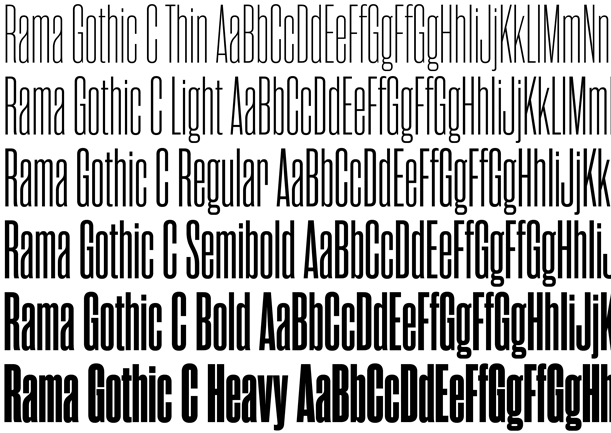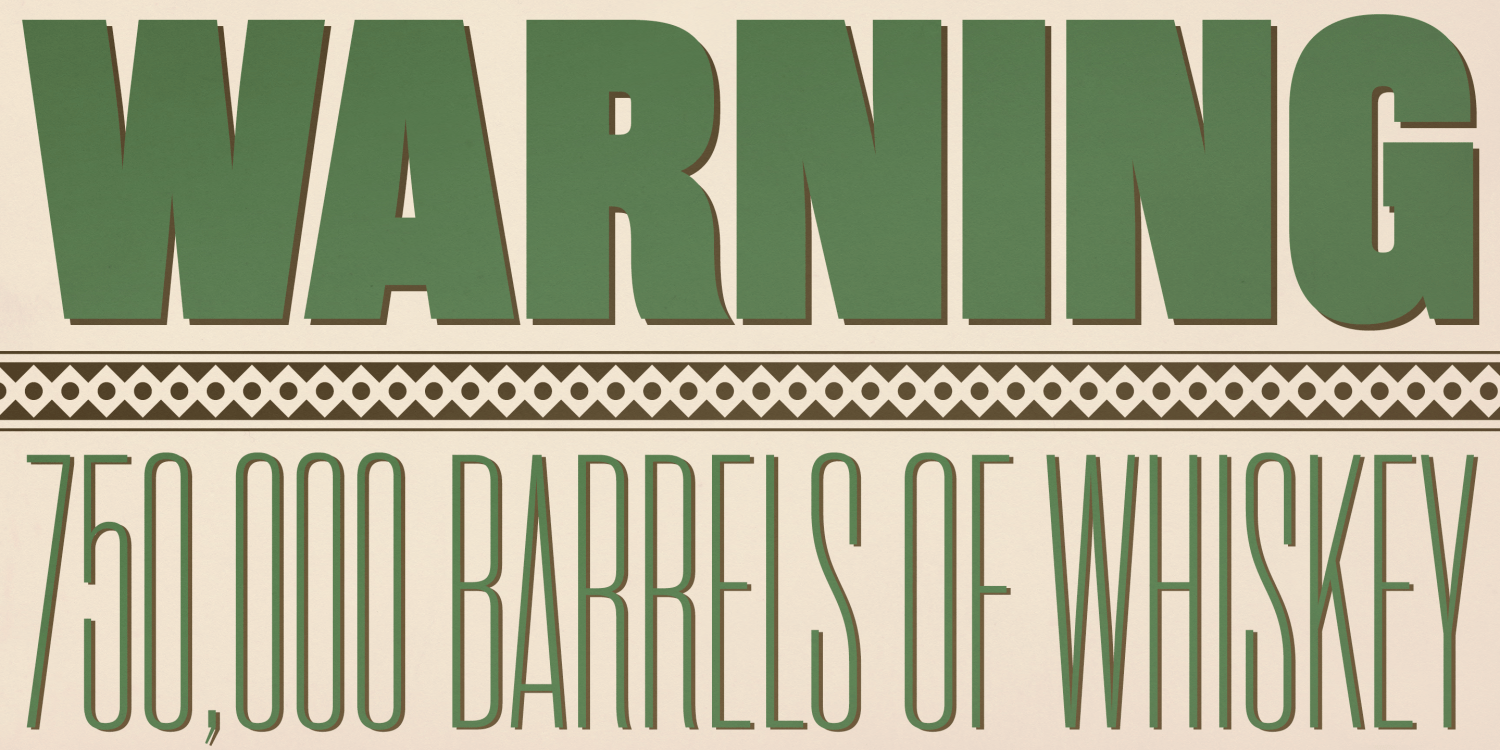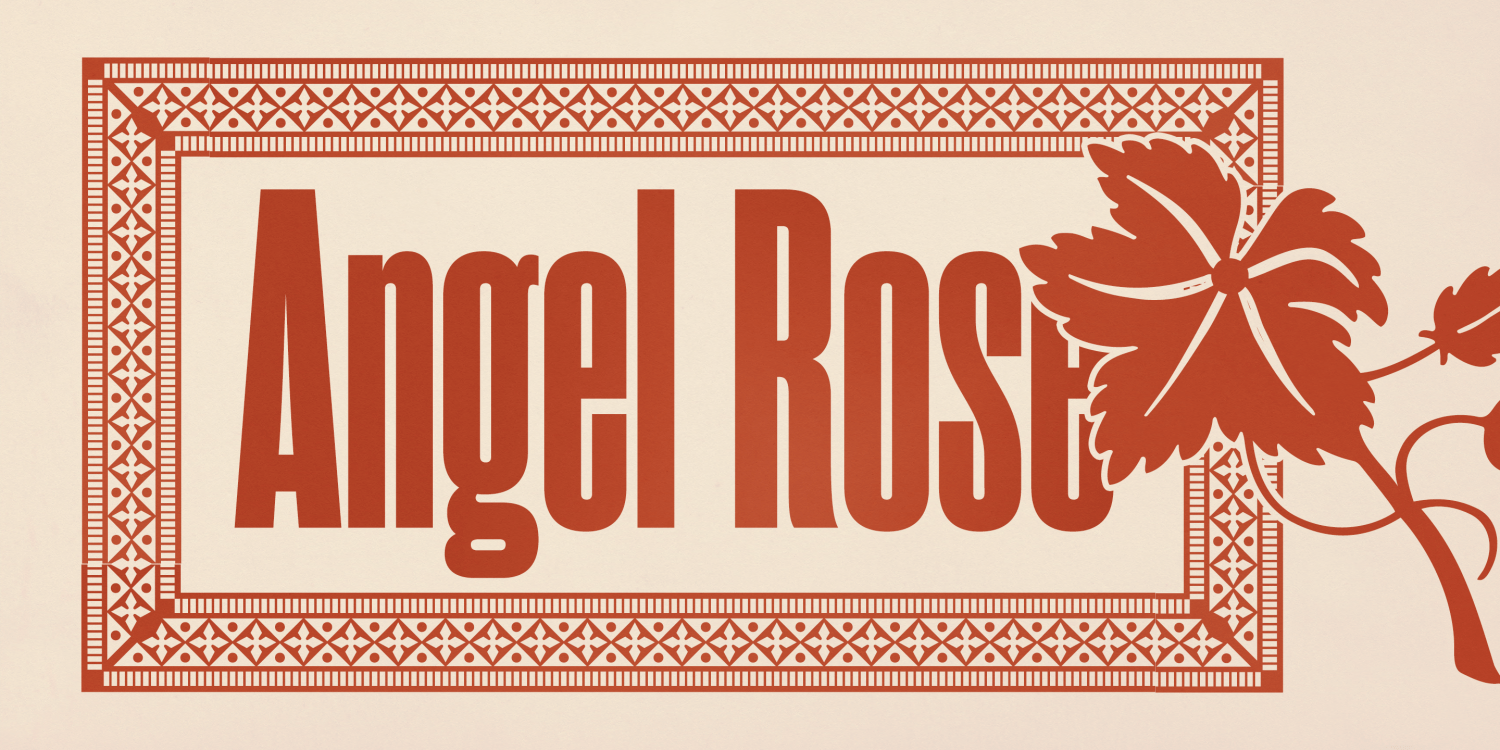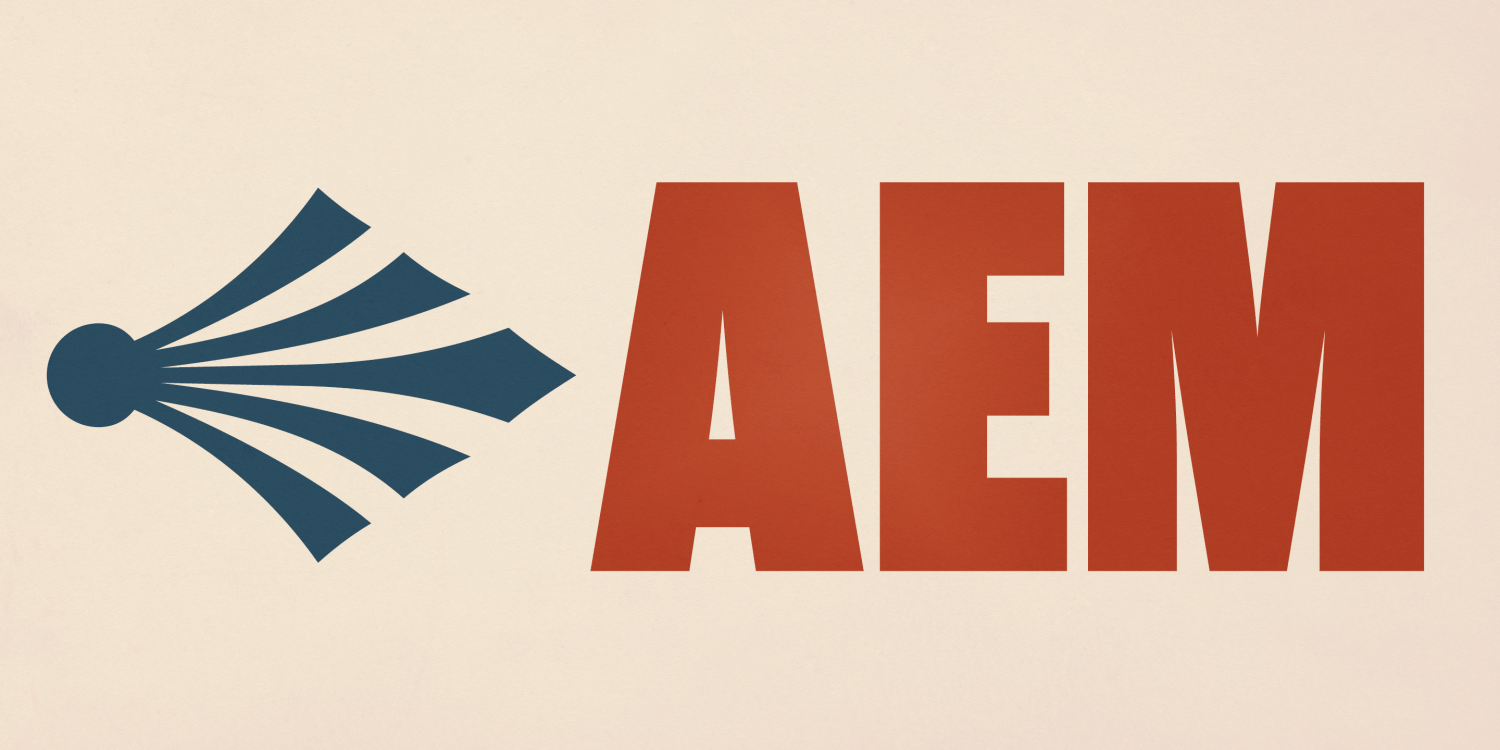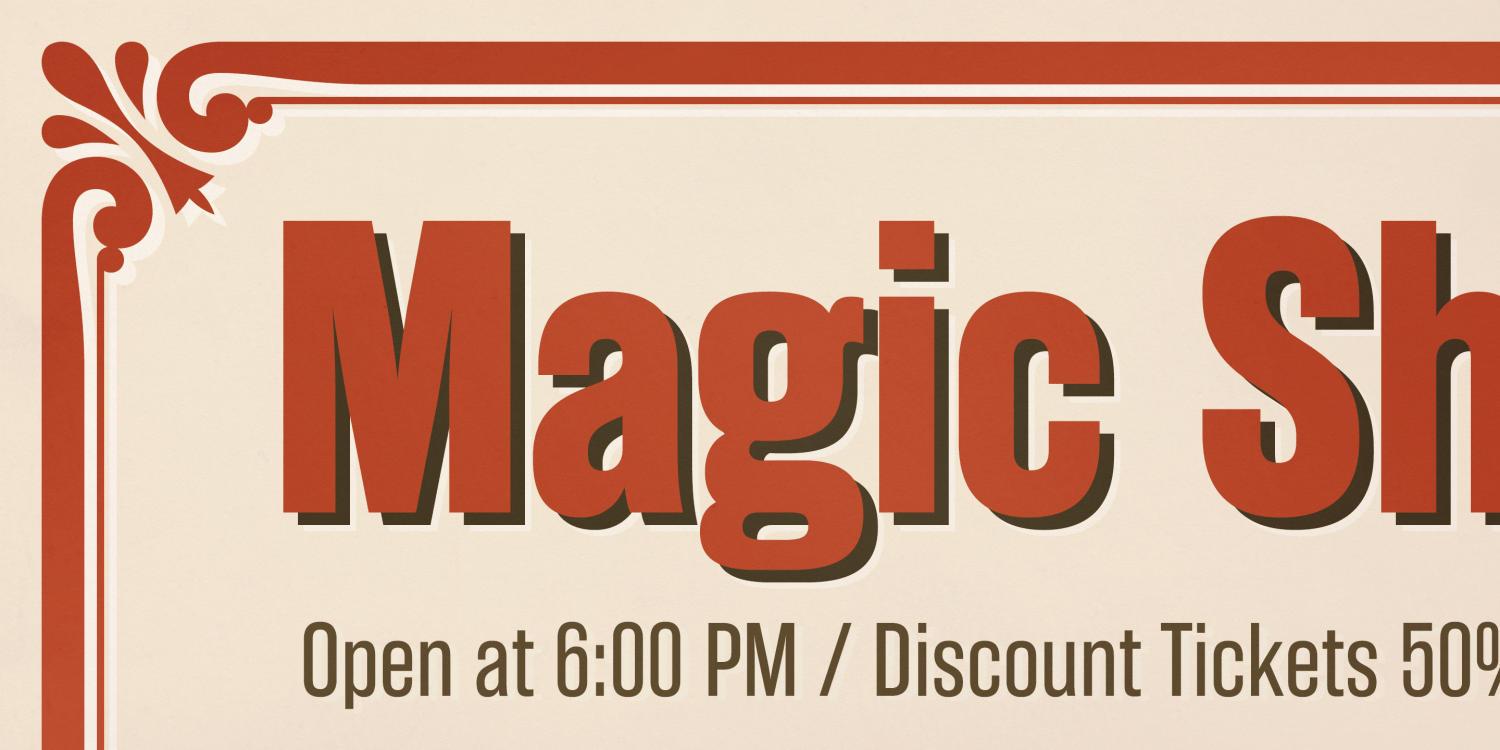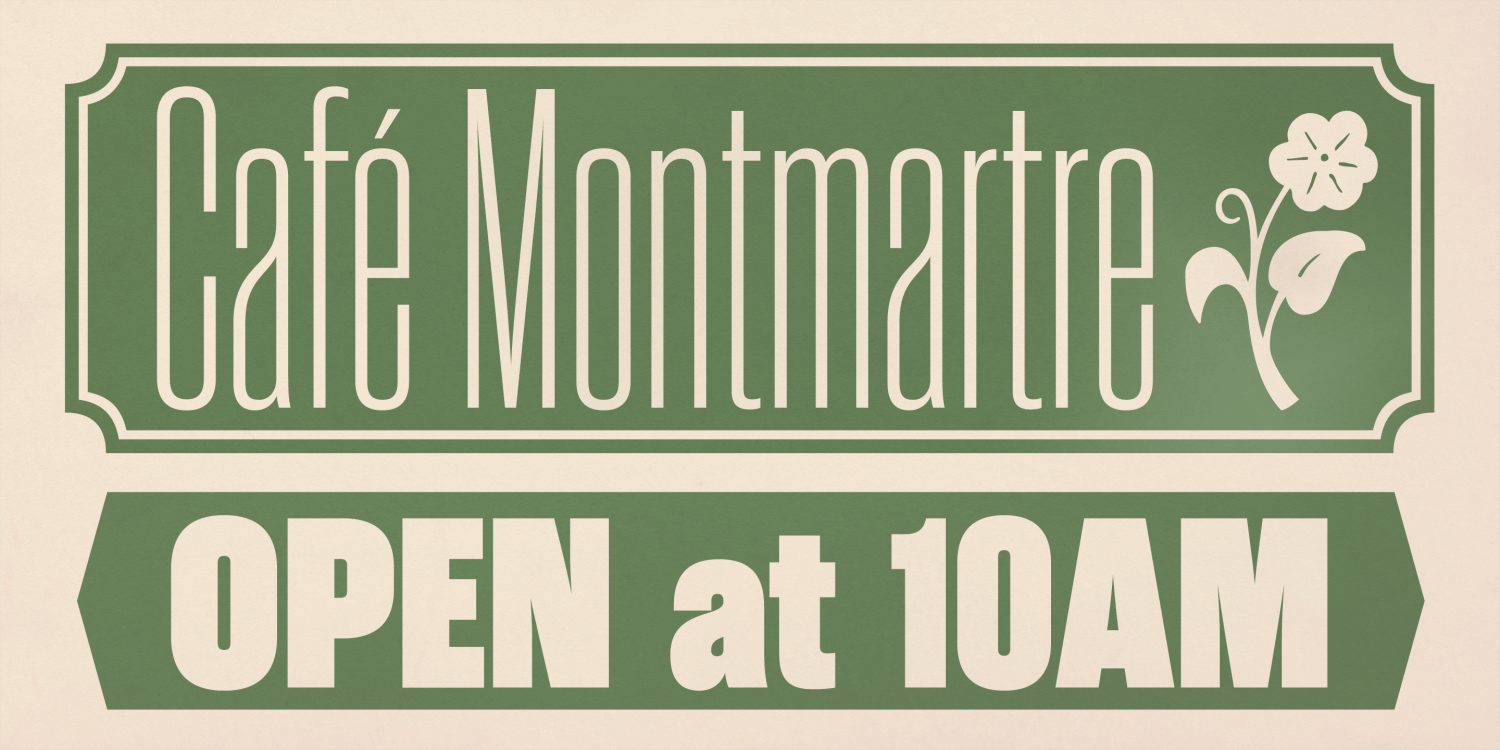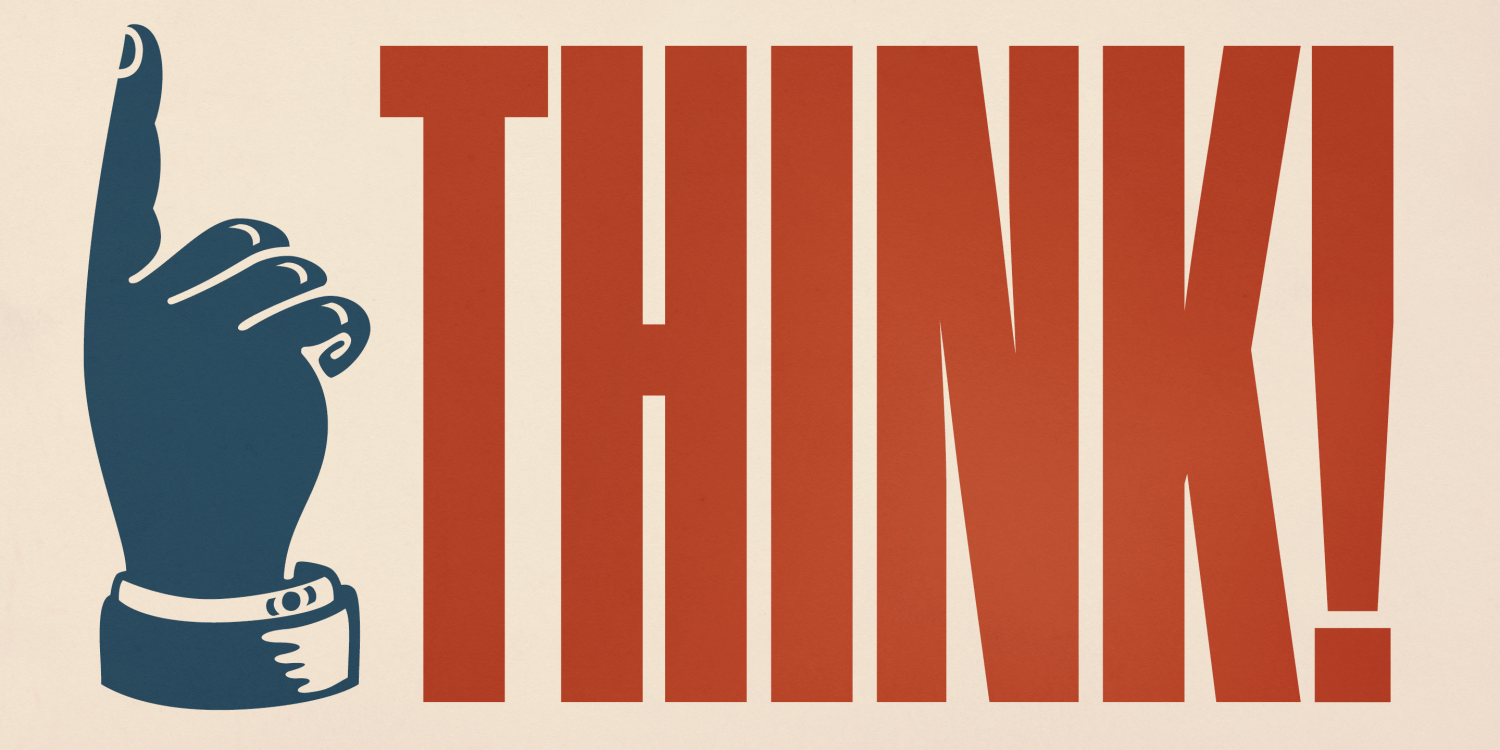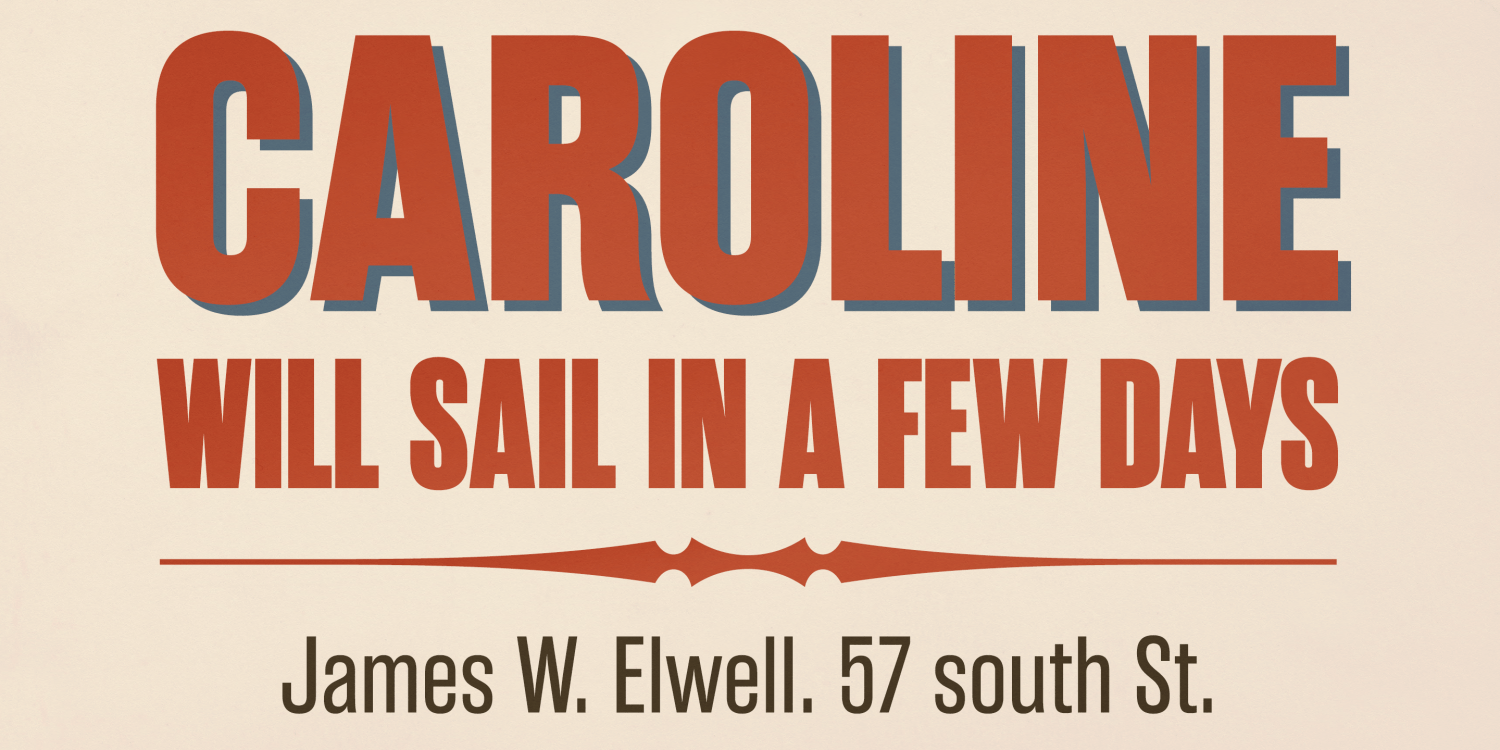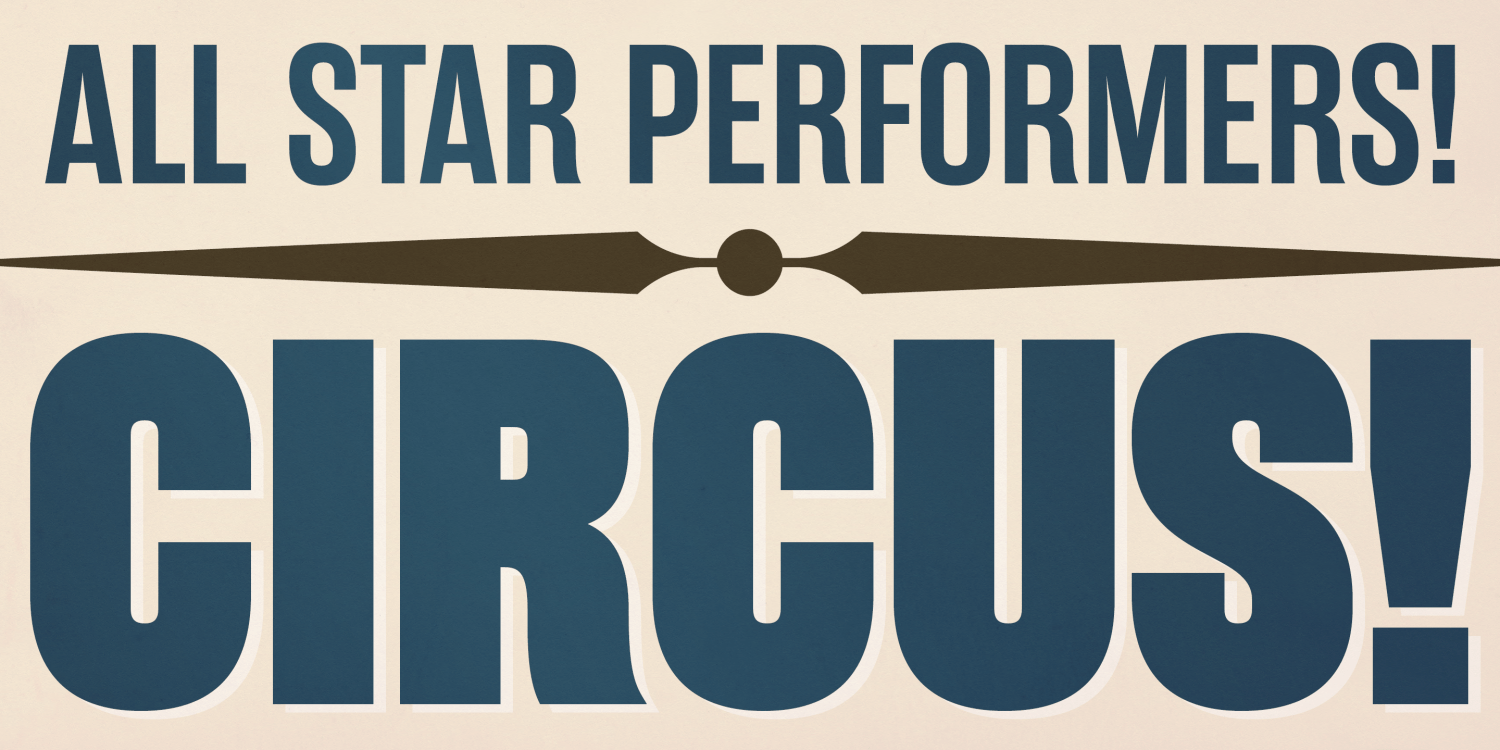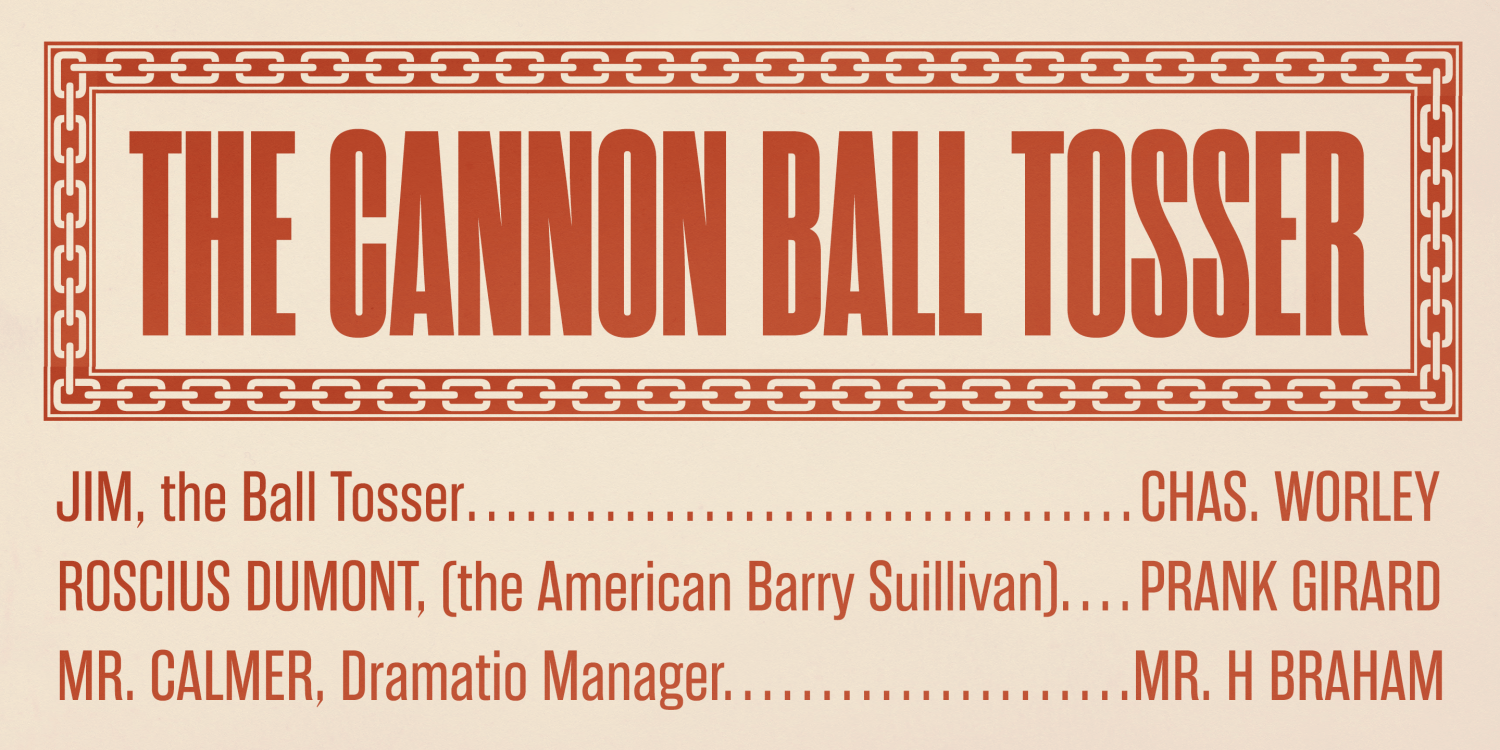
Rama Gothic C
Font Family by Dharma Type
Rama Gothic is an antiqued sans serif typeface inspired by 19th-century wood type.
Each glyph is carefully crafted to capture the retro aesthetic of the era, evoking a strong sense of nostalgia and vintage charm.
This condensed font family includes 18 styles, making it a powerful choice for posters, titles, and any design that demands bold impact.
Additionally, the letter “r” includes an alternate glyph, accessible via the OpenType salt (stylistic alternates) feature, allowing for extra typographic versatility.